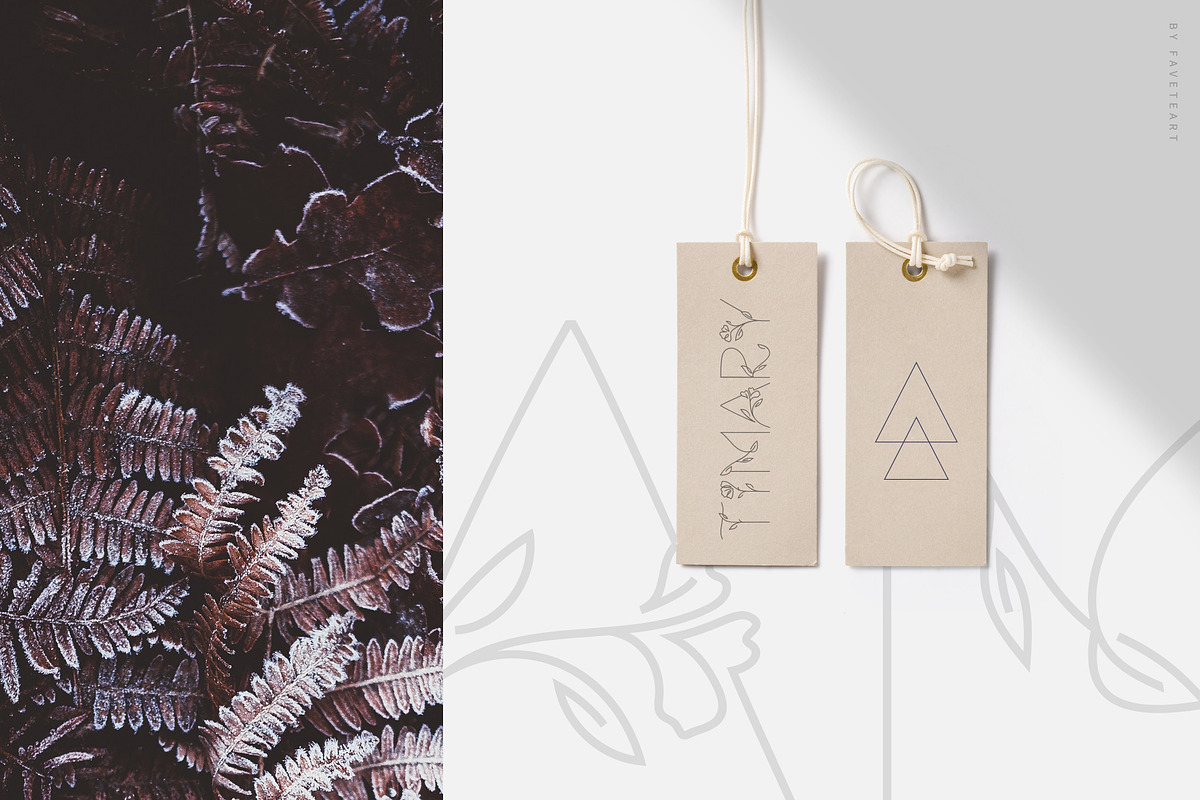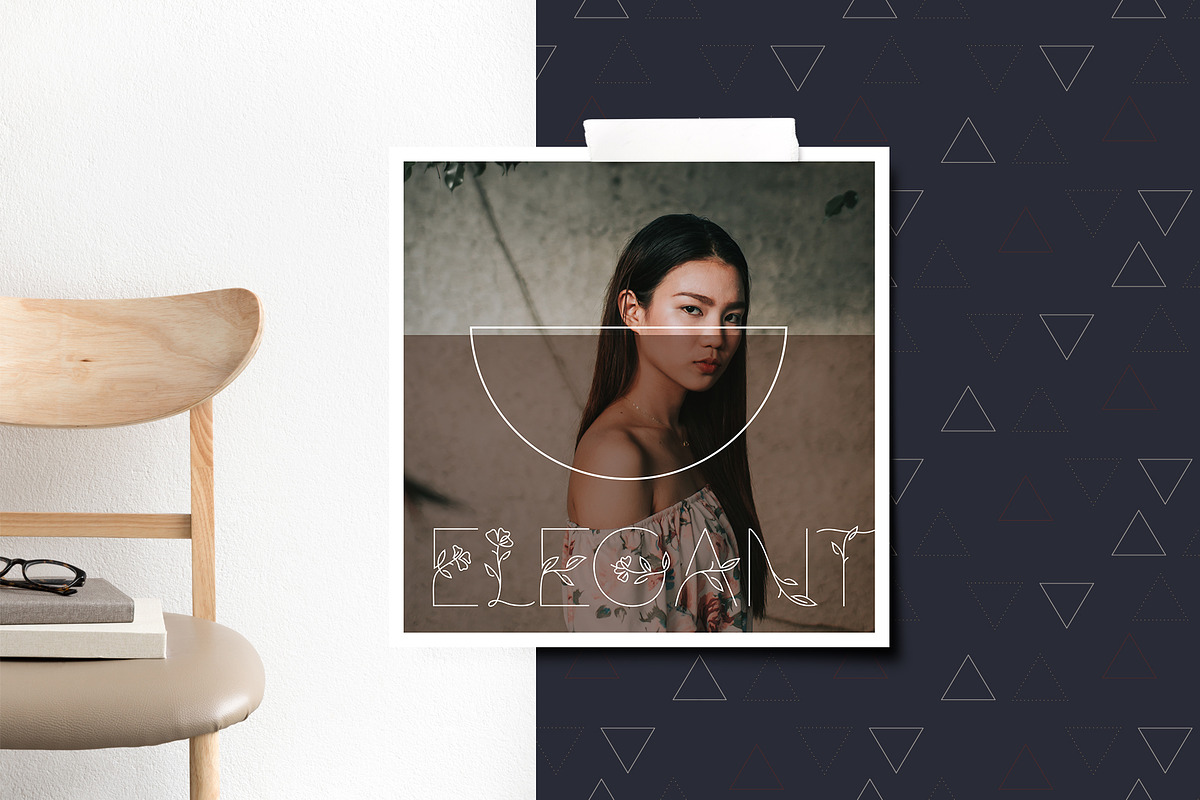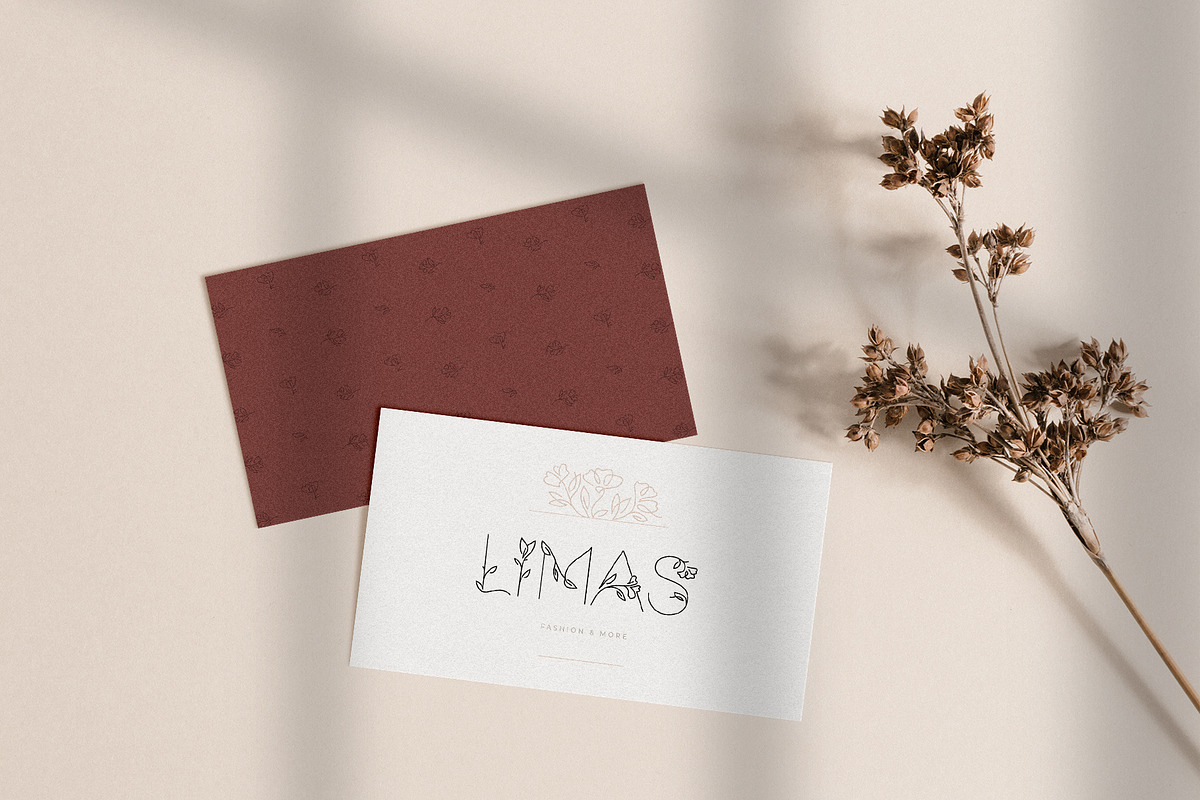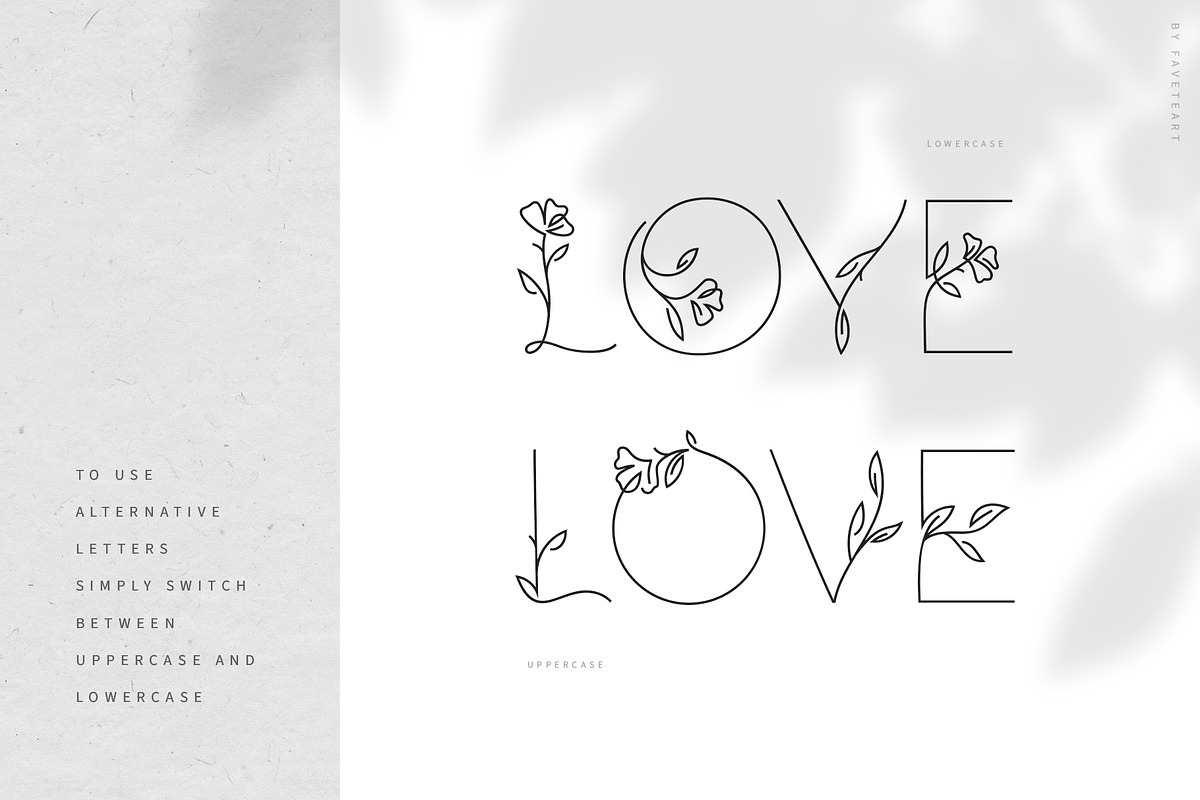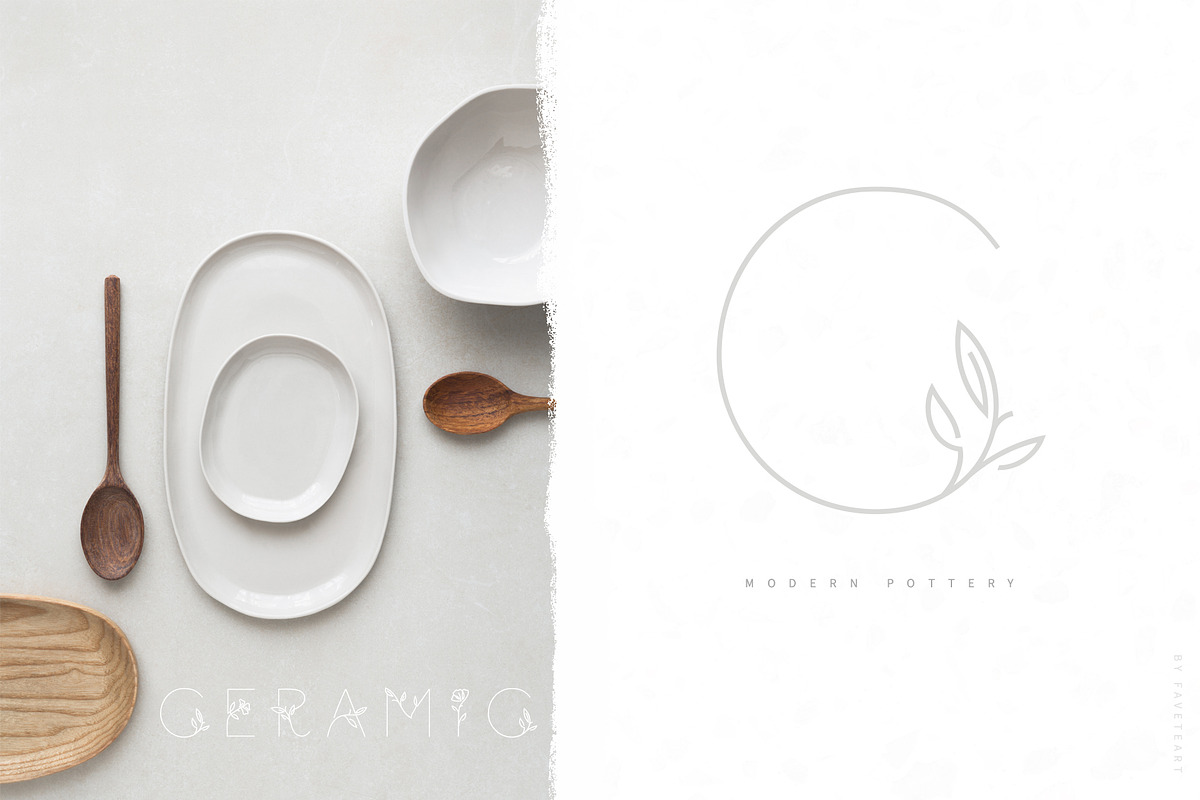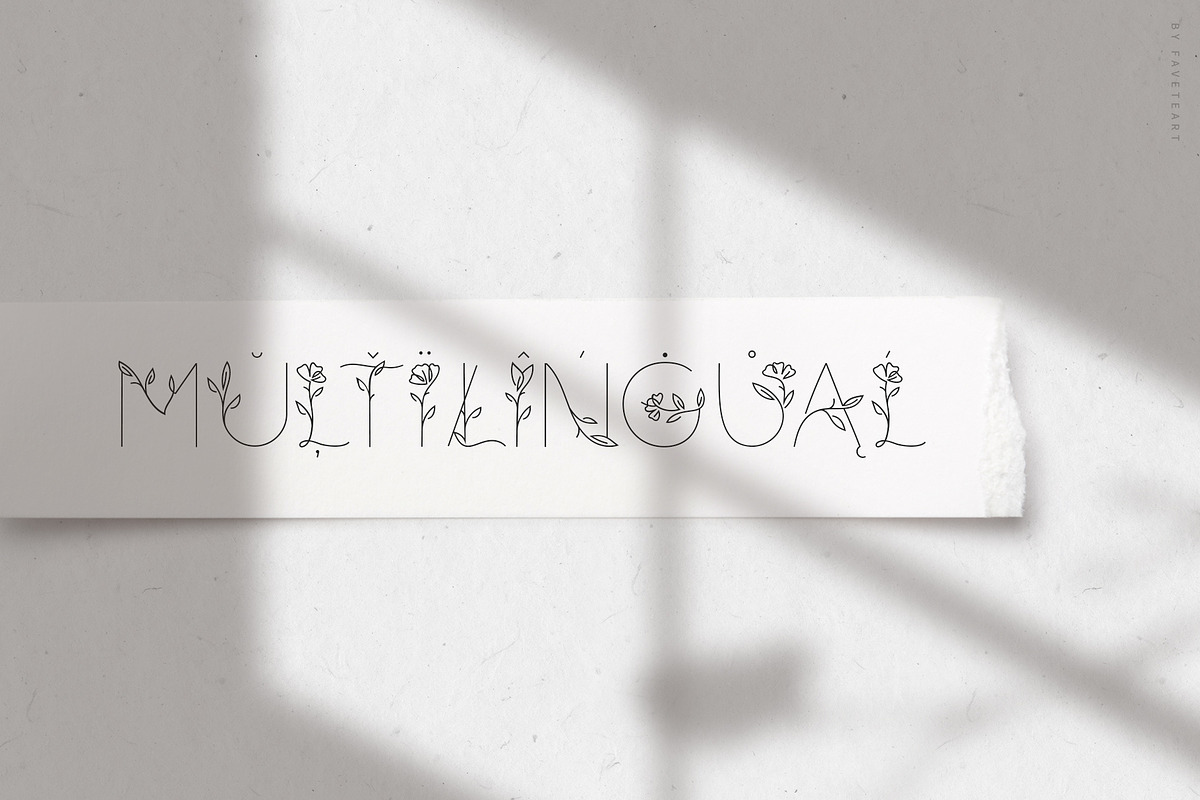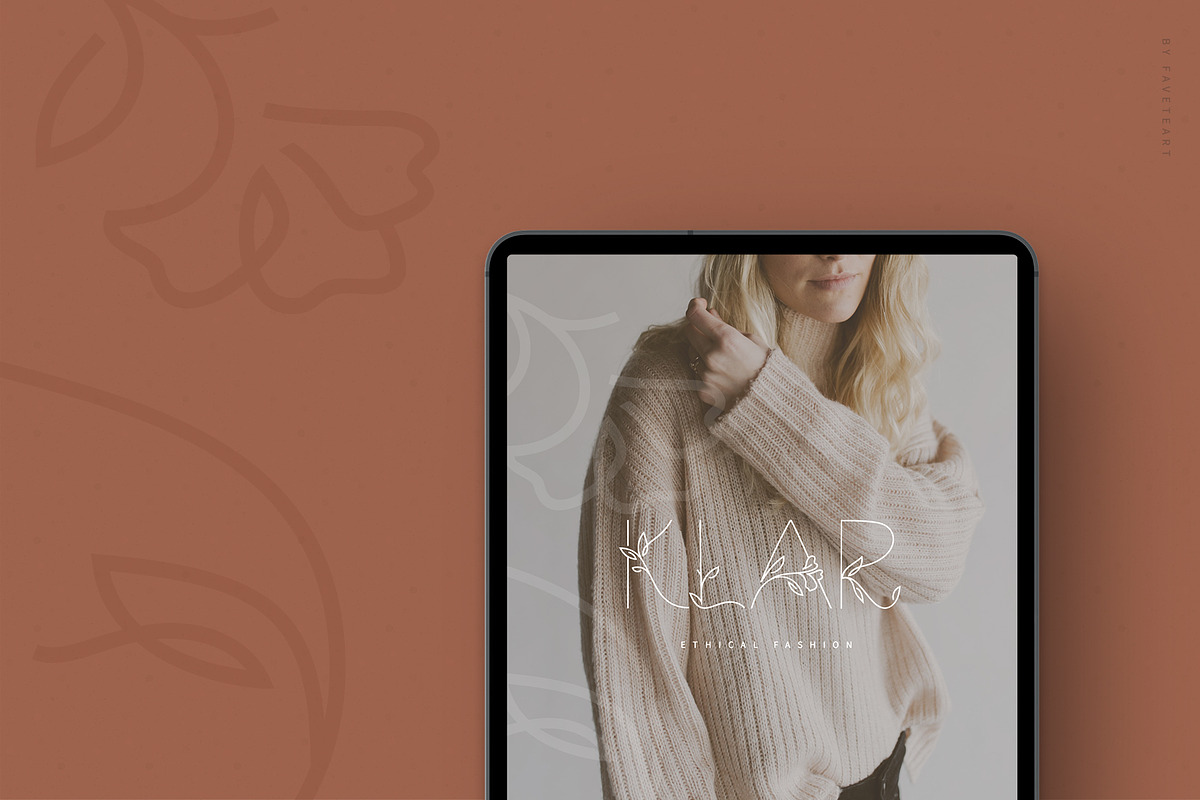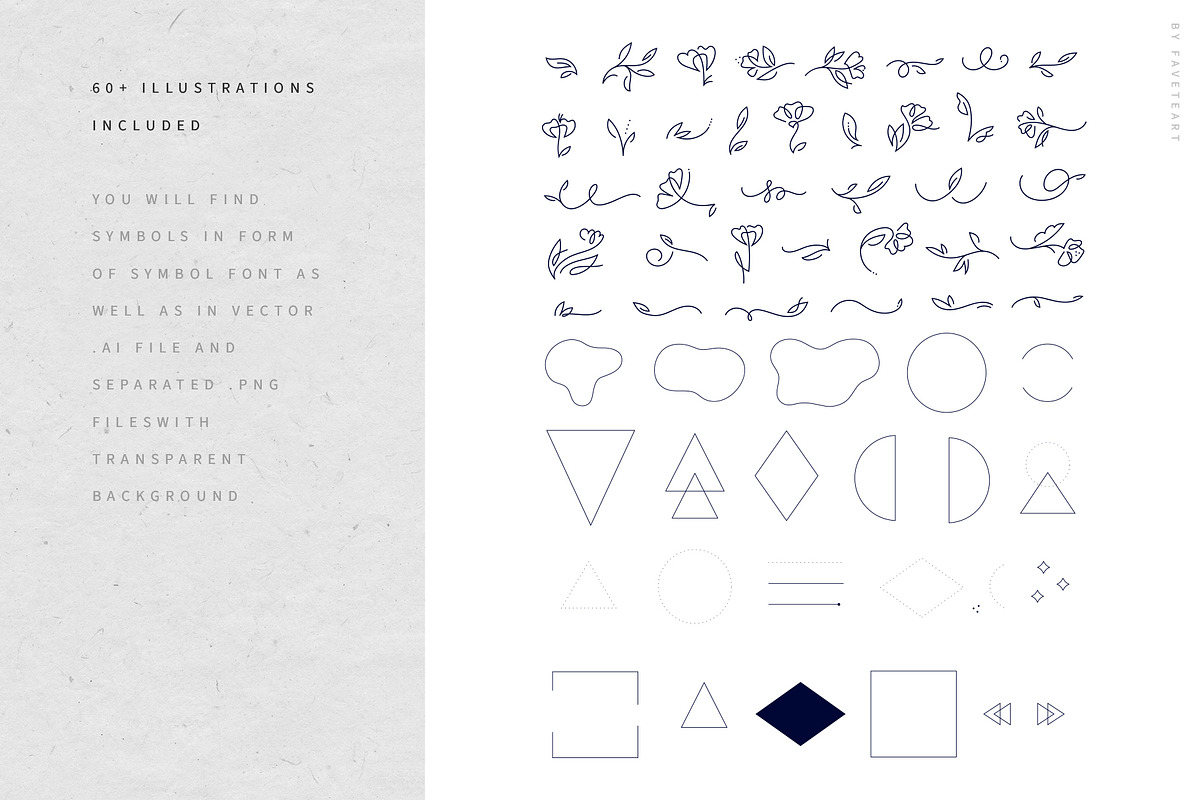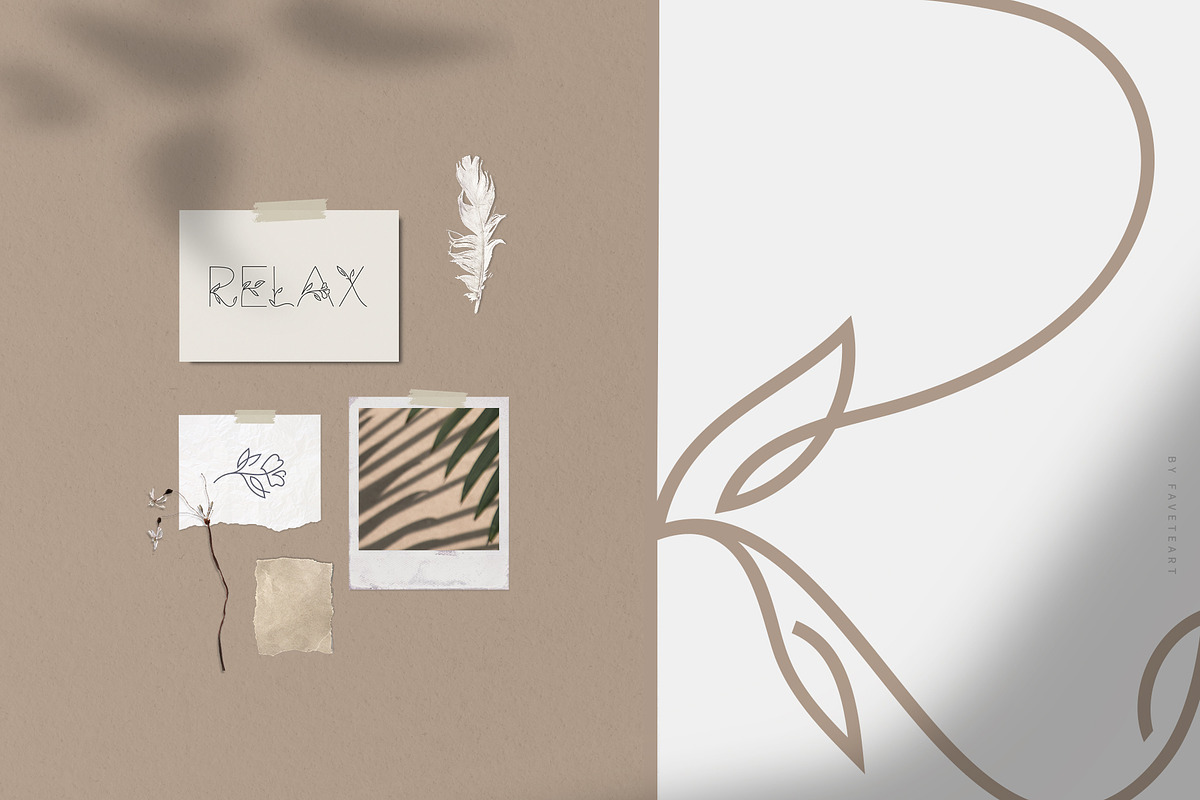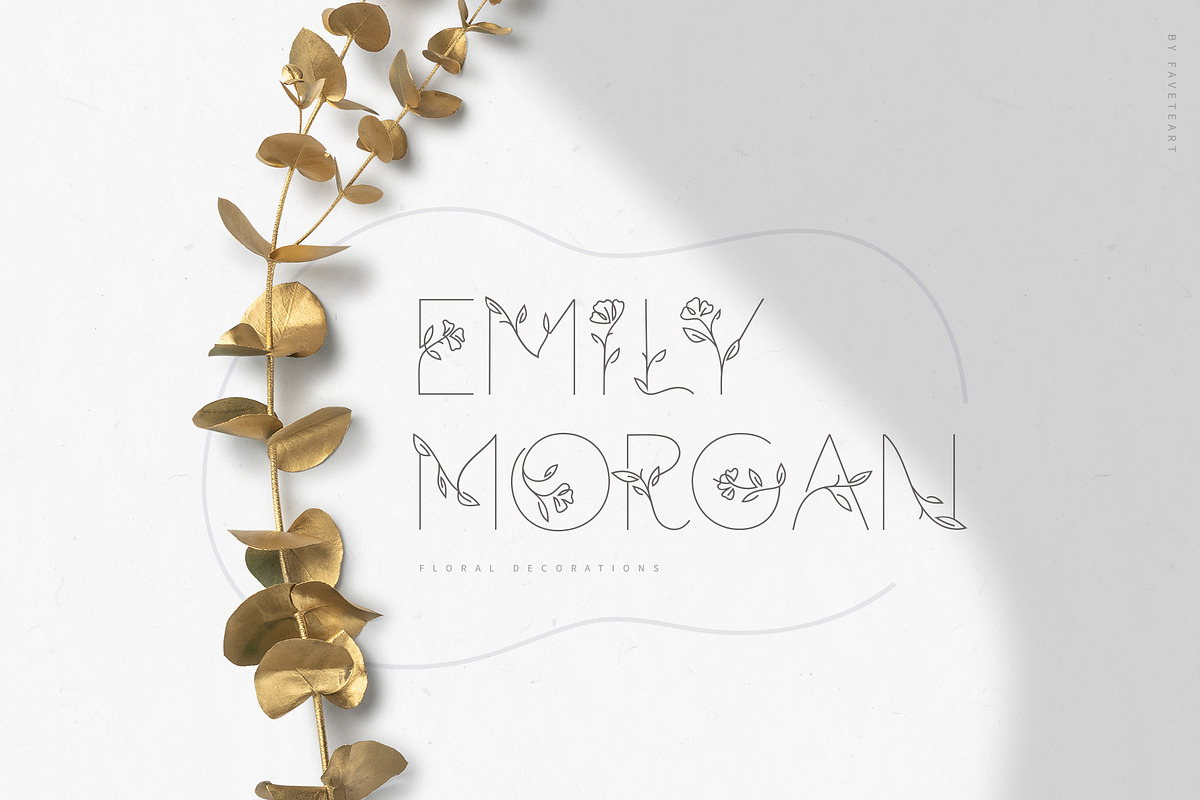
Florium - floral logo font
FLORIUM MODERN LOGO FONT
I’m super excited to present to you my new font Florium. Florium is clean, minimalistic and elegant font with two sets of letters accompanied by 62 beautiful line illustrations.
This font together with symbols will be perfect for logos, branding, product packaging, posters, quotes, social media and all designs where you need to draw attention to the sign or name.
- Florium font - elegant, clean, minimalistic uppercase font with two sets of letters, numerals, punctuation and language support in OTF, TTF formats. It’s super easy to get custom feel - just switch between lowercase and uppercase when typing and you will get different letters.
- 62 illustrations - carefully crafted line symbols will help you to create custom logos and branding elements. You will get illustrations as a font - Florium_Symbols - as well as in vector format (AI, EPS) and separated PNG files with transparent background. So you can choose what is easier for you to use.
Florium supports most all common latin-based languages, to name the few - Albanian, Bosnian, Catalan, Croatian, Czech, Danish, Dutch, English, Esperanto, Estonian, Filipino, Finnish, French, German, Hungarian, Indonesian, Irish, Italian, Latvian, Lithuanian, Norwegian, Polish, Portuguese, Romanian, Slovak, Slovenian, Spanish, Turkish